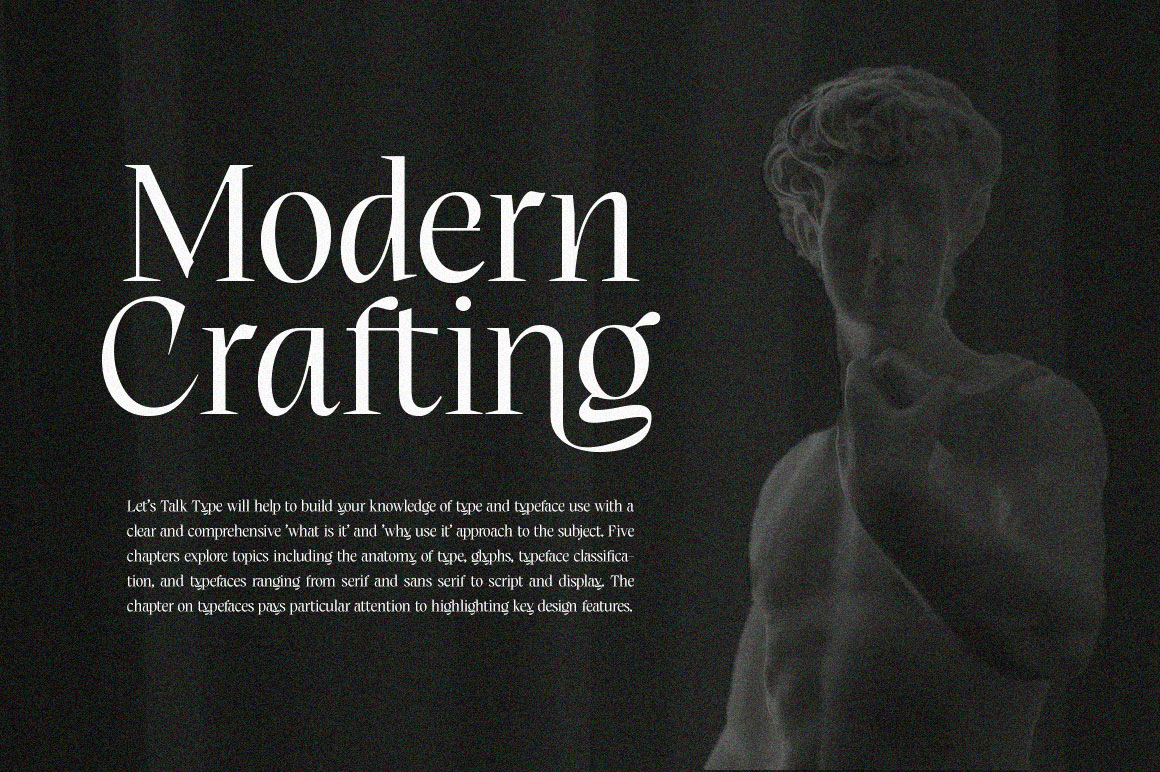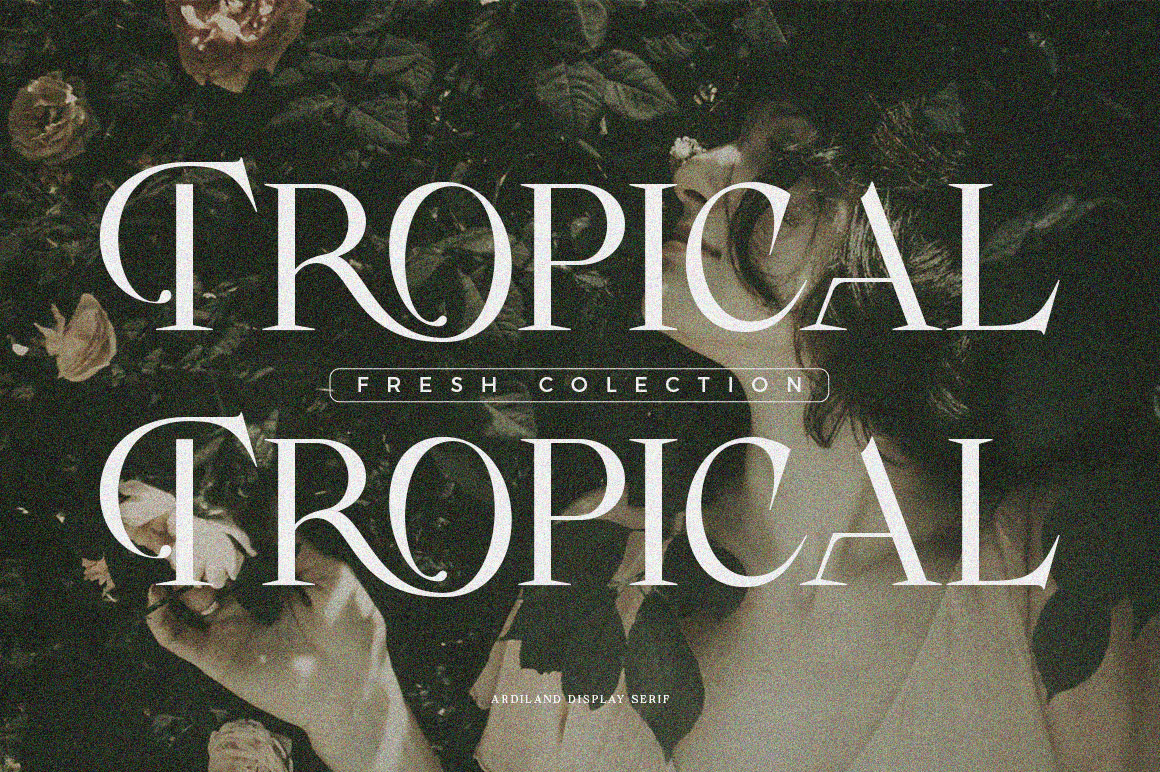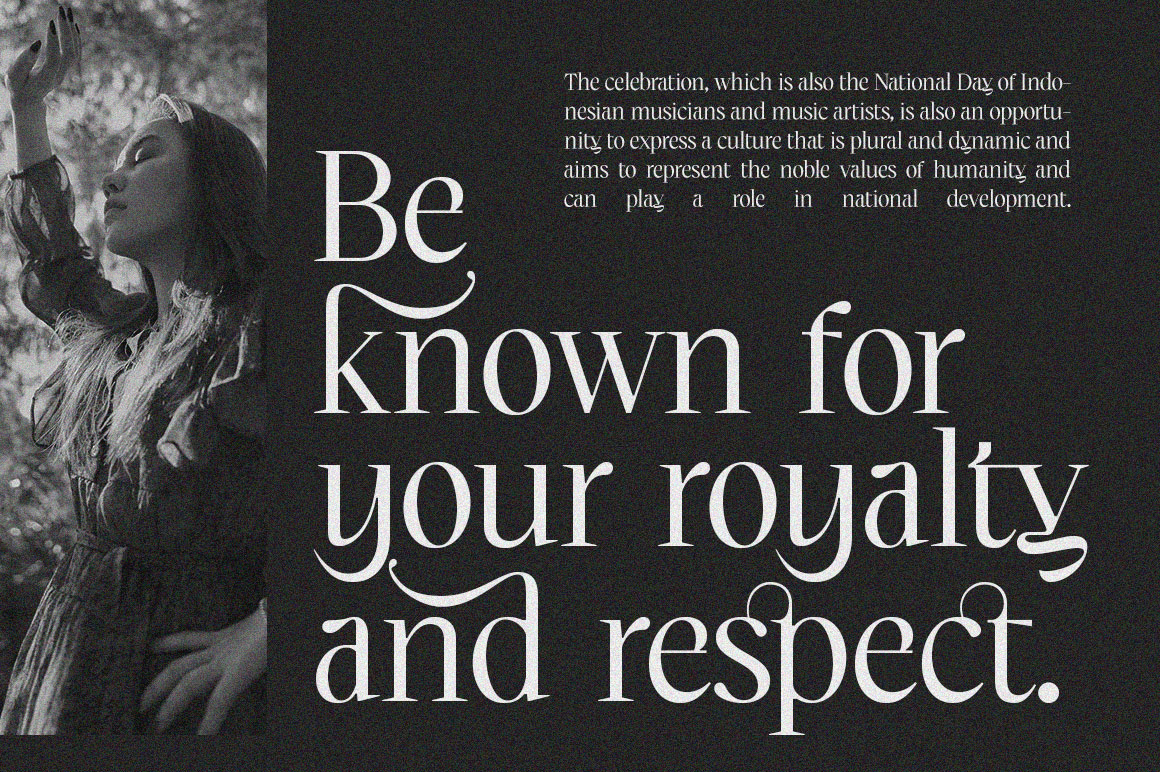
About Ardiland
Introducing, Ardiland – a stylish serif with beautiful binders and substitutes! Ardiland is a modern serif font to apply to many graphic or editorial design projects. A classy, ??unique high contrast, and light binding style for your upcoming projects.…